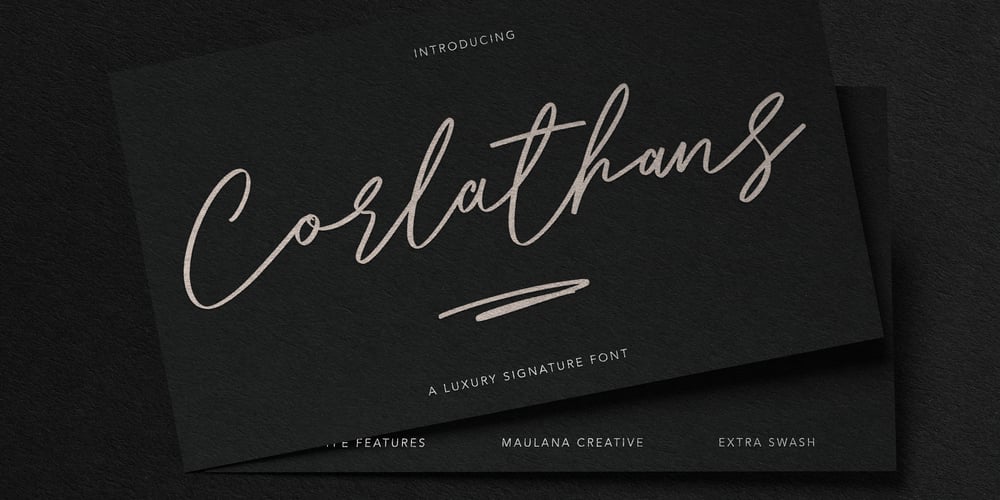
Corlathans
Corlathans font
Corlathans Font Family was designed by Gilang Maulana and published by Maulana Creative. Corlathans contains 1 styles and family package options. Give your designs an authentic handcrafted feel. “Corlathans Luxury Signature Font” is perfectly suited to signature, stationery, logo, typography quotes, magazine or book cover, website header, clothing, branding, packaging design and more.Thanks for use this font.MaulanaCreative